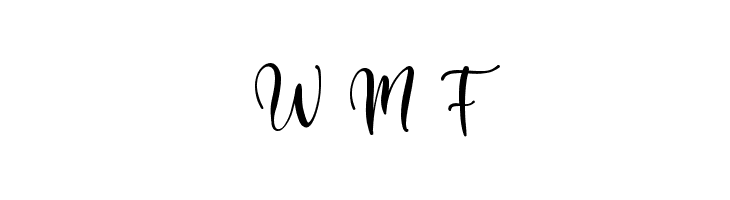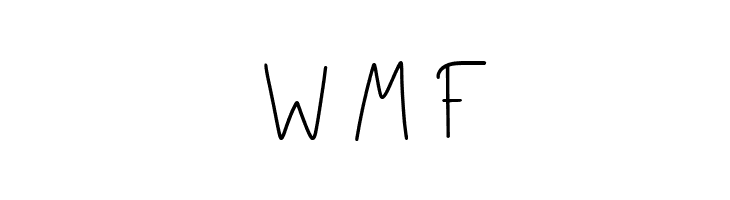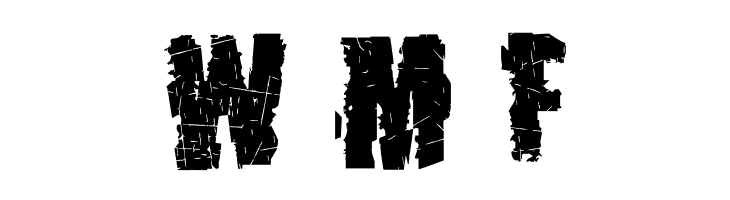
A bold, Halloween-themed font with playful, spooky elements.
A bold, dripping font perfect for Halloween-themed designs.
A bold, distressed font with a punk rock, DIY aesthetic.
A playful, handwritten font with smooth, consistent strokes and a casual style.
A bold, angular font with a gothic influence and high contrast.
A cursive, handwritten-style font with elegant, flowing strokes.
A playful, hand-drawn font with a whimsical and artistic style.
A bold, distressed font with a gritty, urban style.
A playful handwritten font with flowing, irregular letterforms and a modern aesthetic.